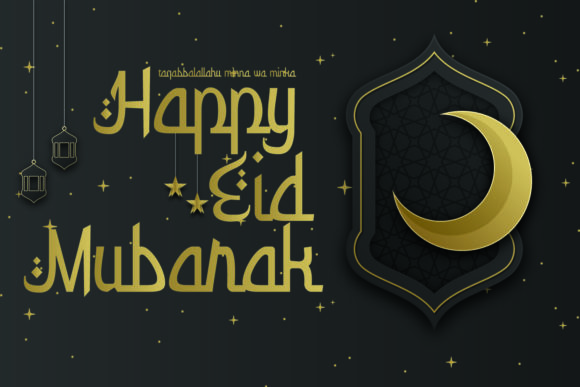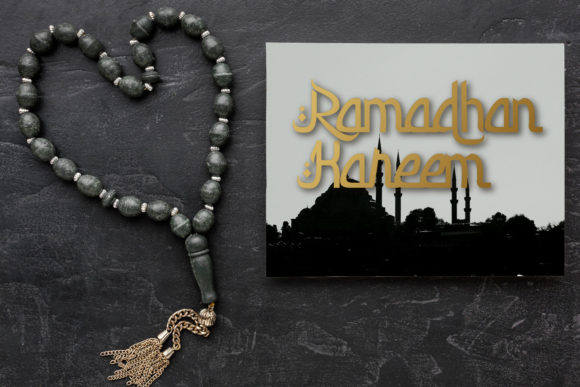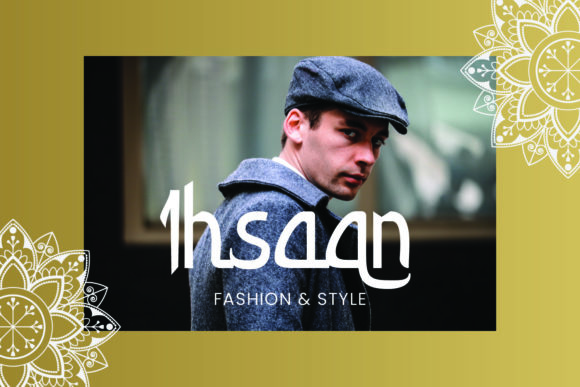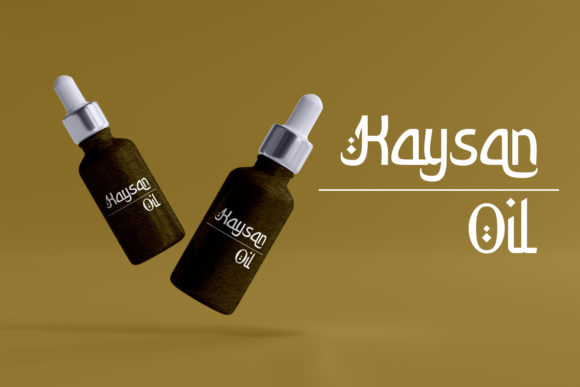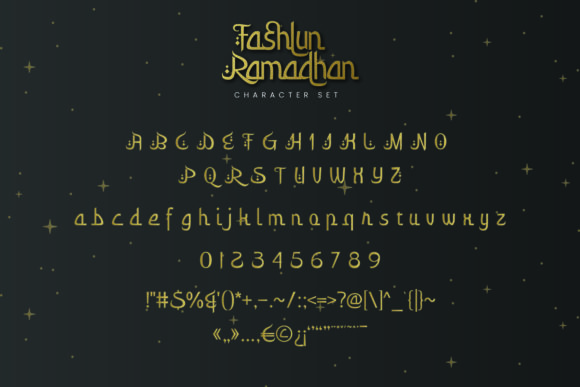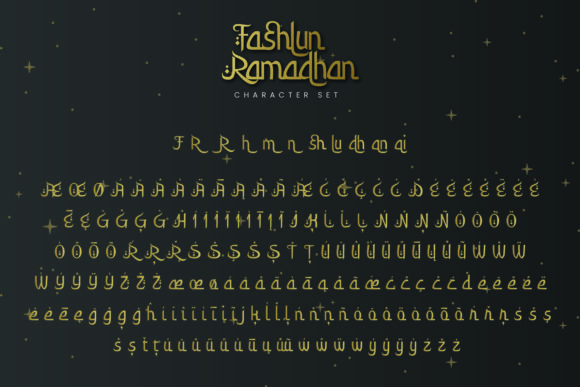
Fashlun Ramadhan Font: Elevate Your Designs with a Touch of Magic
Are you tired of using the same old fonts in your designs? Look no further! Fashlun Ramadhan Font is here to revolutionize your creative projects with its incredibly cool and unique display font style. This modern yet whimsical font is sure to transport your designs into a magical world, captivating your audience and setting you apart from the crowd.
What Makes Fashlun Ramadhan Font So Special?
Fashlun Ramadhan Font boasts a distinctive style that seamlessly blends modernity with playfulness. Its unique design elements make it perfect for a wide range of creative projects, from branding and advertising to packaging and digital media. Whether you’re a designer, craftsperson, or simply a DIY enthusiast, this font is sure to inspire your imagination and take your designs to the next level.
One of the standout features of Fashlun Ramadhan Font is its PUA (Private Use Area) encoding. This means that you can easily access all of the amazing glyphs and ligatures, allowing you to add an extra layer of creativity and sophistication to your designs. With PUA encoding, you can effortlessly navigate the font’s extensive character set, unlocking a world of design possibilities.
Fashlun Ramadhan Font is incredibly versatile, making it suitable for a wide range of design applications. Here are just a few ideas to get you started:
- Branding and Logo Design: Create a memorable brand identity with a custom logo that showcases your unique style.
- Social Media Graphics: Elevate your social media presence with eye-catching graphics that incorporate Fashlun Ramadhan Font.
- Packaging Design: Add a touch of magic to your product packaging and make it stand out on store shelves.
- Digital Media: Use Fashlun Ramadhan Font to create stunning digital media, such as videos, animations, and presentations.
Why Choose Fashlun Ramadhan Font?
With so many fonts available, why choose Fashlun Ramadhan Font? Here are just a few reasons why designers and crafters love this unique font:
- Unique Style: Fashlun Ramadhan Font offers a distinctive style that will set your designs apart from the crowd.
- Ease of Use: With PUA encoding, accessing the font’s glyphs and ligatures is easy and intuitive.
- Versatility: Fashlun Ramadhan Font is suitable for a wide range of design applications, from branding and advertising to packaging and digital media.
- Magical Aesthetic: This font’s whimsical style is sure to add a touch of magic to your designs, captivating your audience and leaving a lasting impression.
Get Ready to Cast a Spell with Fashlun Ramadhan Font
In conclusion, Fashlun Ramadhan Font is an incredibly cool and unique display font that is sure to revolutionize your creative projects. With its modern yet whimsical style, PUA encoding, and endless design possibilities, this font is perfect for designers and crafters looking to add a touch of magic to their designs. So don’t miss out on this amazing opportunity to elevate your designs and take your creativity to the next level. Download Fashlun Ramadhan Font today and discover a world of design possibilities!